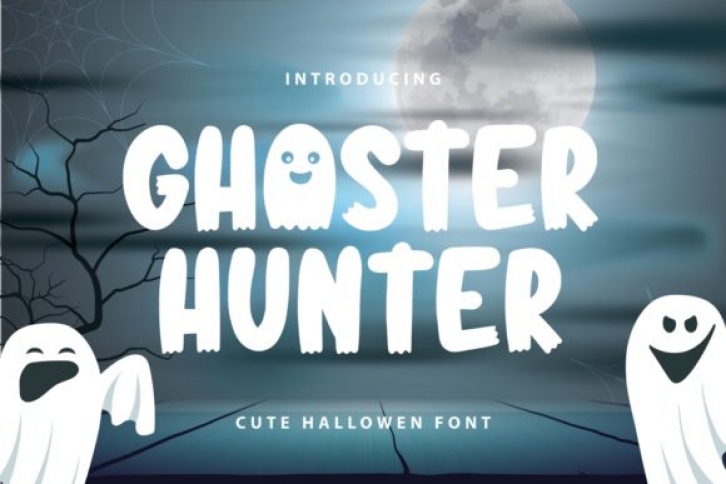
Ghoster Hunter is a cute and quirky handwritten font. This font is Halloween-themed. It will add an incredibly joyful touch to your designs. Add this beautiful font to each of your creative ideas and notice how it makes them stand out!